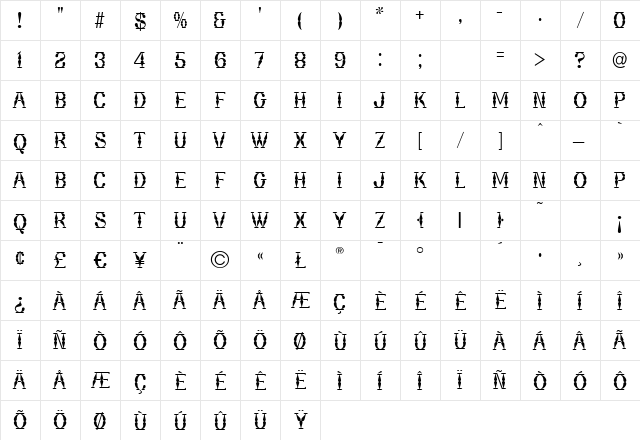
Bordeaux Normal
Design Context for Bordeaux Typeface
Bordeaux is a composed and adaptable typeface that performs quietly and consistently across a wide range of design contexts.